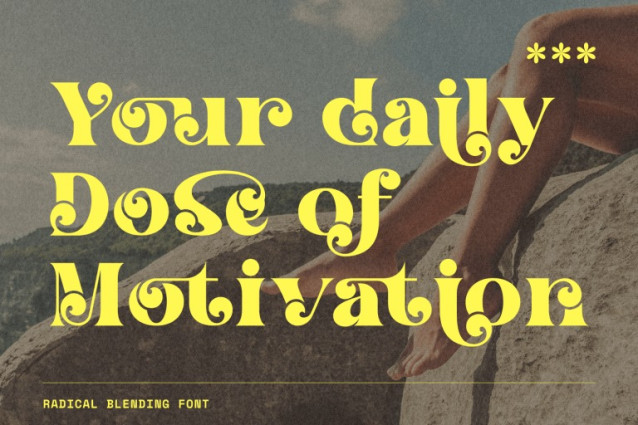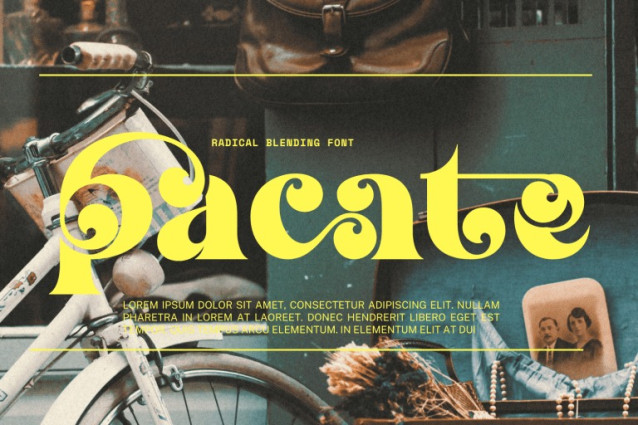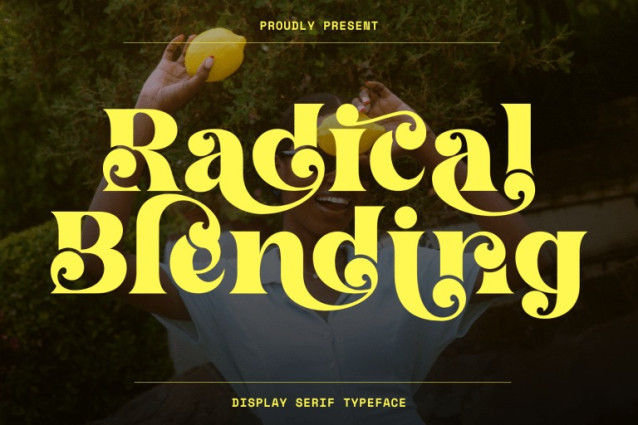
Radical Blending Font
Radical Blending – Playful Retro Font, a playful retro serif display font inspired by vintage typography with a bold, cheerful, and expressive personality. This typeface features soft, rounded serif forms combined with generous curves and lively swashes, creating a friendly yet eye-catching appearance. Radical Blending stands out through its decorative terminals, bouncy letterforms, and charming ligatures that bring movement and joy into every word. The overall design feels warm, nostalgic, and optimistic, making it perfect for branding, packaging, posters, headlines, children’s products, lifestyle designs, social media graphics, and creative editorial layouts.
Uppercase & Lowercase Letters
Around 100 Special Ligatures & Alternates
Accented Characters for multilingual support
🔤About 100 ligatures combined with Stylistic Alternates Font: